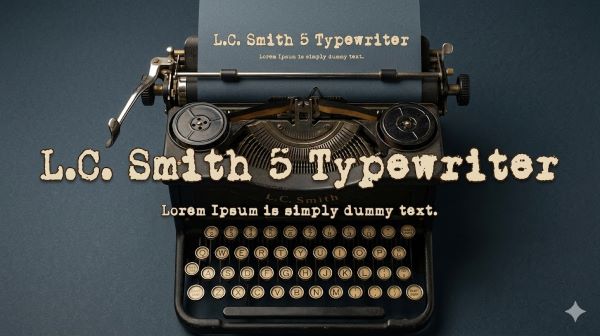
L.C. Smith 5 Typewriter Font
L.C. Smith 5 Typewriter by Georg Sommeregger is a free typewriter font digitized directly from the actual L.C. Smith 5 — a classic early 20th-century American typewriter with a distinctive letterform character. This typewriter font carries genuine mechanical provenance, making it a historically grounded choice for period-accurate design work, vintage editorial, retro branding, and any project that benefits from typography with a documented real-world origin rather than a generic approximation. Free for personal use; commercial via designer contact.